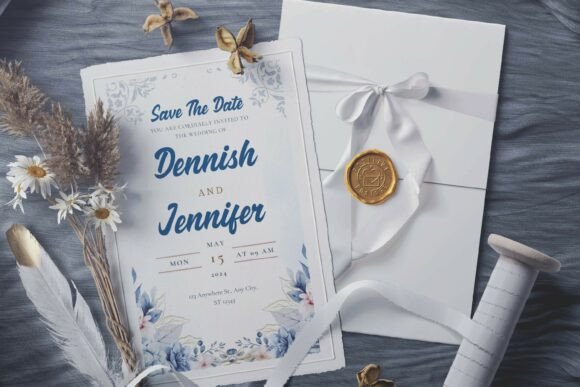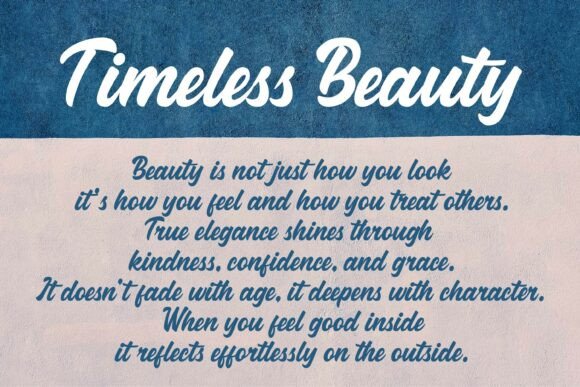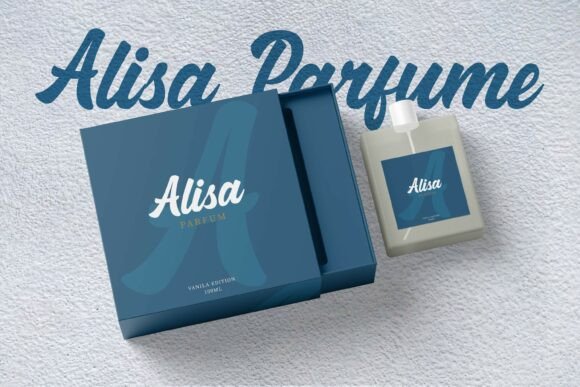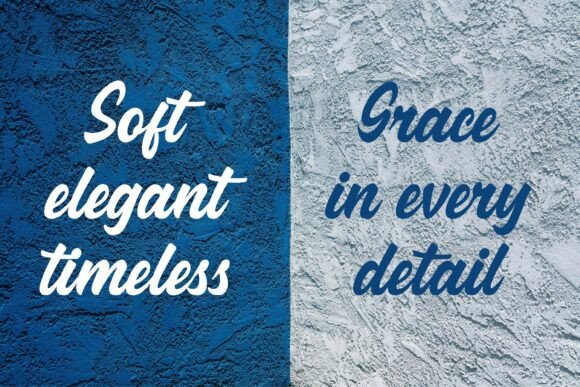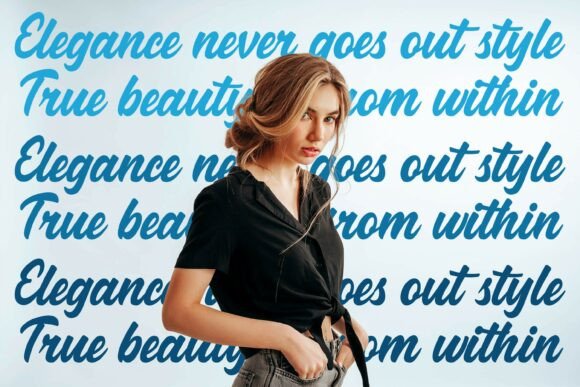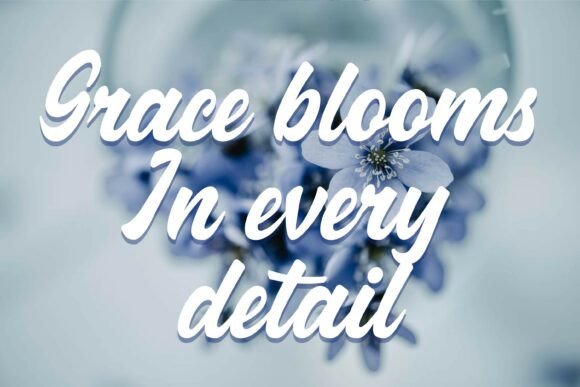
Ghantly Script – Modern Calligraphy Font
Are you looking for a font that exudes elegance, sophistication, and charm? Look no further than Ghantly Script, a modern calligraphy font that is perfect for a variety of creative projects. With its flowing strokes, soft curves, and clean structure, Ghantly Script is ideal for designers and crafters who want to add a touch of class to their work.
The Characteristics of Ghantly Script
Ghantly Script is a modern calligraphy font that boasts a range of characteristics that make it both elegant and readable. Some of its key features include:
- Flowing Strokes: Ghantly Script features flowing strokes that give it a sense of movement and fluidity. This makes it perfect for creating beautiful, hand-written text that is both elegant and eye-catching.
- Soft Curves: The font’s soft curves add a touch of femininity and sophistication, making it ideal for wedding invitations, beauty branding, and other feminine designs.
- Clean Structure: Despite its flowing strokes and soft curves, Ghantly Script has a clean and structured design that makes it easy to read. This makes it perfect for body text, headings, and titles.
Uses for Ghantly Script
Ghantly Script is a versatile font that can be used for a wide range of creative projects. Some of the most popular uses for this font include:
- Wedding Invitations: Ghantly Script is perfect for wedding invitations, with its elegant and sophisticated design making it ideal for formal wedding stationery.
- Beauty Branding: The font’s soft curves and flowing strokes make it perfect for beauty branding, including logos, packaging, and marketing materials.
- Feminine Logos: Ghantly Script is a great choice for feminine logos, with its elegant design making it perfect for businesses that want to convey a sense of sophistication and style.
- Social Media Posts: The font’s clean structure and flowing strokes make it perfect for social media posts, including Instagram captions, Facebook posts, and Twitter updates.
Why Choose Ghantly Script?
So why choose Ghantly Script over other fonts? Here are just a few reasons why this font is a great choice for designers and crafters:
- Elegance: Ghantly Script exudes elegance and sophistication, making it perfect for designs that demand a touch of class.
- Readability: The font’s clean structure and flowing strokes make it easy to read, even at small sizes.
- Versatility: Ghantly Script can be used for a wide range of creative projects, from wedding invitations to social media posts.
- Uniqueness: Ghantly Script has a unique design that sets it apart from other fonts, making it perfect for designers who want to create something truly special.
How to Use Ghantly Script
Using Ghantly Script is easy, and there are a few things to keep in mind when working with this font:
- Pair it with a Sans Serif Font: Ghantly Script looks great when paired with a sans serif font, such as Arial or Helvetica. This creates a nice contrast between the elegant script font and the clean sans serif font.
- Use it for Headings and Titles: Ghantly Script is perfect for headings and titles, where its elegant design can really shine.
- Experiment with Different Sizes: Ghantly Script looks great at a range of sizes, from small body text to large headings. Experiment with different sizes to find the one that works best for your design.
In conclusion, Ghantly Script is a modern calligraphy font that is perfect for designers and crafters who want to add a touch of elegance and sophistication to their work. With its flowing strokes, soft curves, and clean structure, Ghantly Script is ideal for a wide range of creative projects, from wedding invitations to social media posts. So why not give Ghantly Script a try and see how it can bring a touch of class to your design?
Let Ghantly Script bring graceful sophistication to your design.